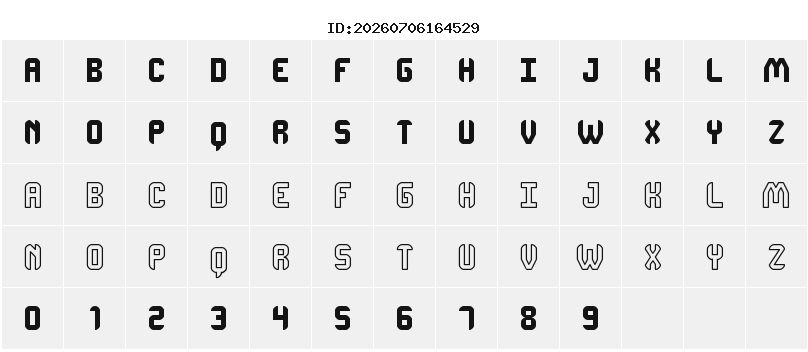
• Font Name: DhonJako St
• Designer: This font is an original work of southype dot com
DhonJako St.ttf is a modern, elegant sans-serif font designed for ultimate readability and visual harmony. Perfect for branding, headlines, web design, and print materials.